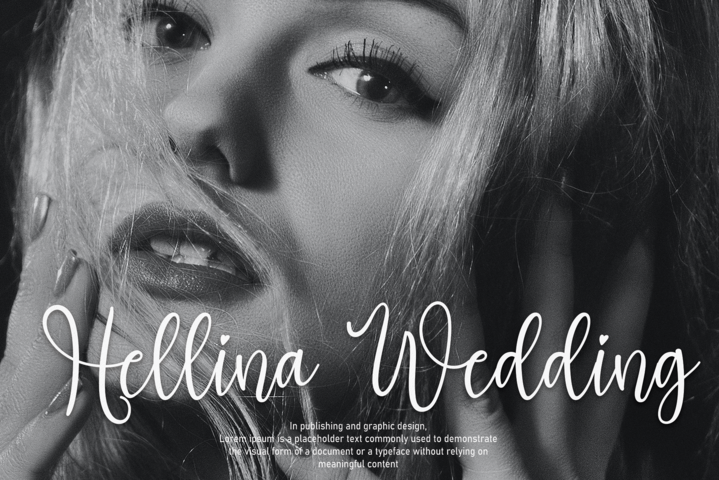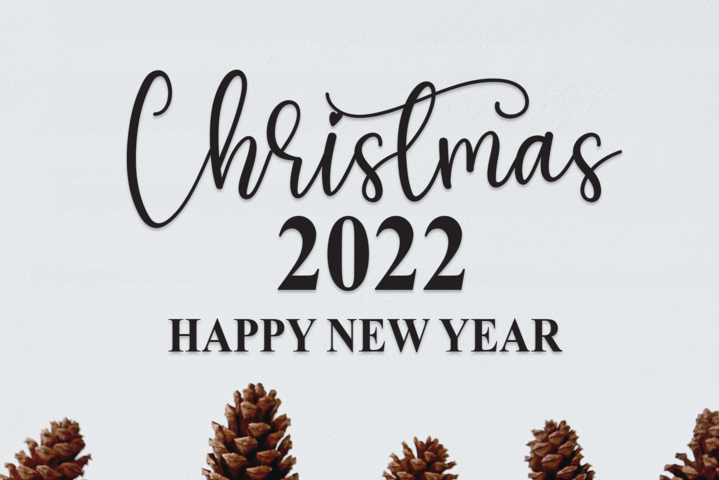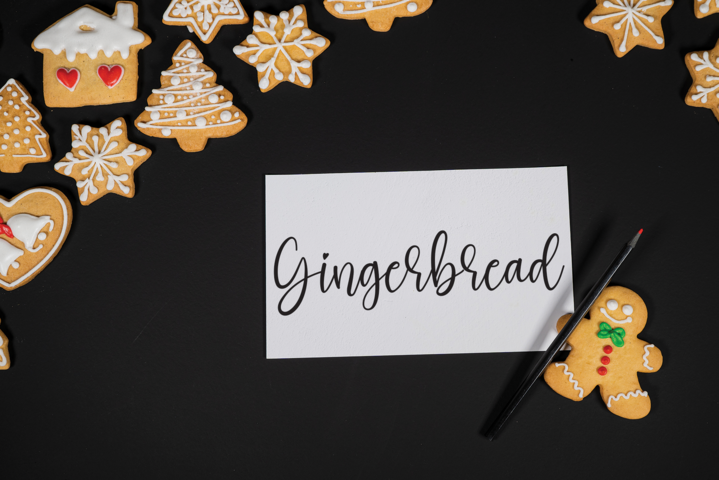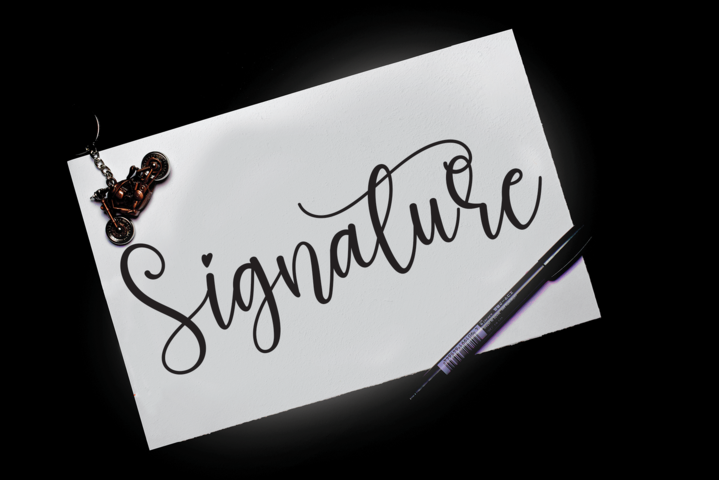
Blackbeer Font
Blackbeer Script Font
This is an exquisite handwritten font, masterfully designed to become a true favorite. It maintains its classy calligraphic influences while feeling contemporary and fresh. Fall in love with it and bring your projects to the highest levels!